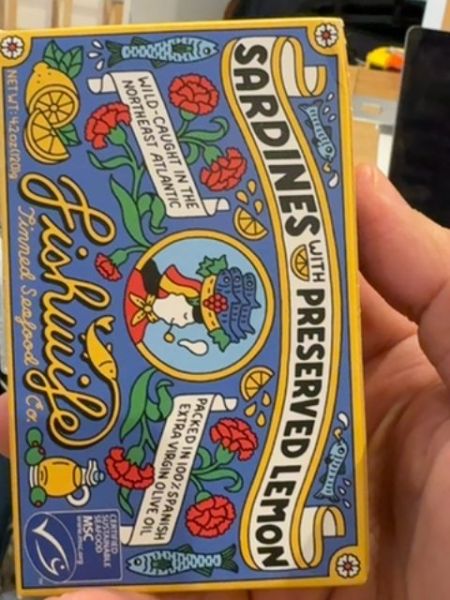
Fishwife
Canned sardines with preserved lemon, wild-caught in the Northeast Atlantic and packed in Spanish extra virgin olive oil.
The typography on the packaging features a mix of bold sans-serif and decorative script fonts. The heading 'Sardines with Preserved Lemon' uses a bold sans-serif font with a retro flair, contributing to a classic vintage look. The brand name 'Fishwife' is styled in a flowing script, adding an elegant and artisanal touch to the overall design.
The packaging features a vibrant and colorful design with floral and sea motifs. It includes imagery of lemons and ocean waves, creating a fresh and artisanal feel. The use of yellow and blue tones provides a lively contrast, capturing attention on the shelf.